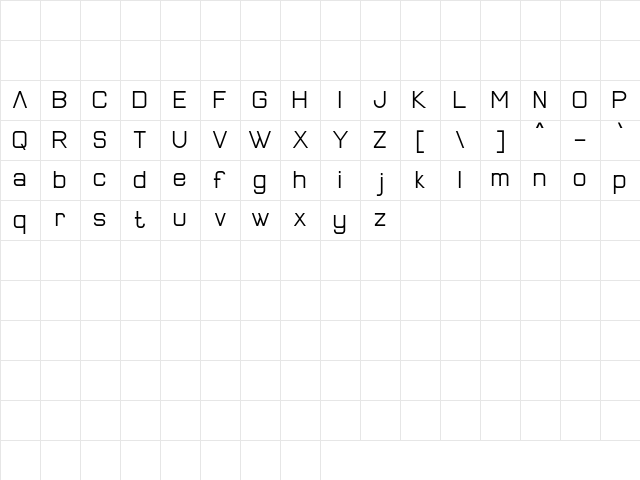
New Alenia Thin Free Font
New Alenia Thin
Style: Thin
Foundry: Shanaya Creative Studio
Designer: Wahyu Sa
Design Context for New Alenia
New Alenia is a composed and adaptable typeface that performs quietly and consistently across a wide range of design contexts. Its slender proportions lend an understated elegance to any composition.